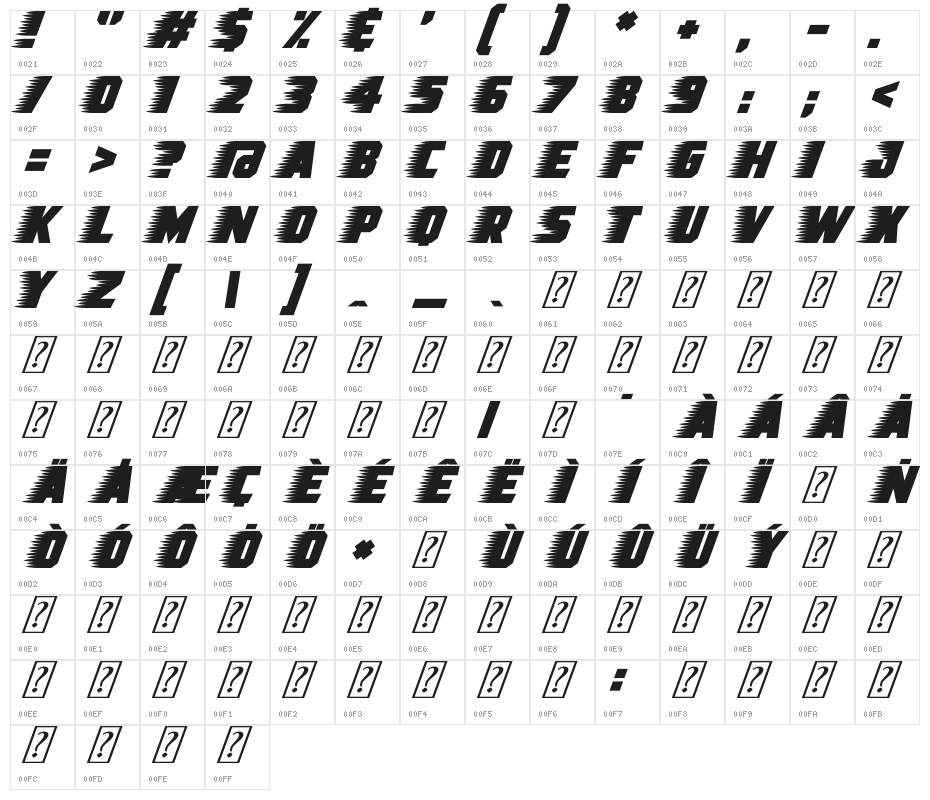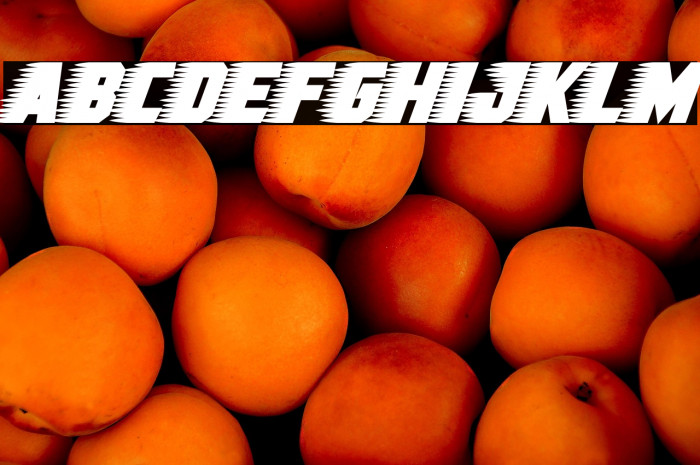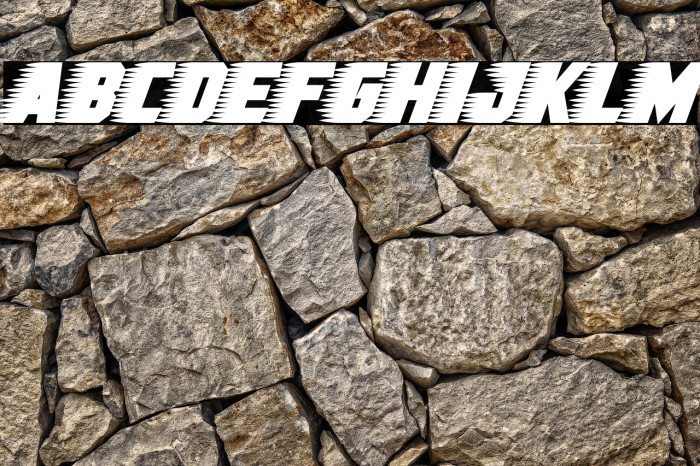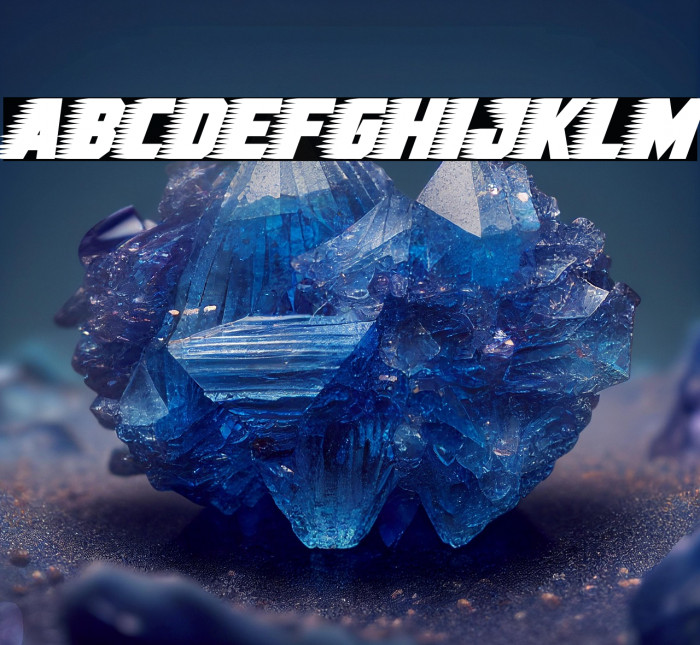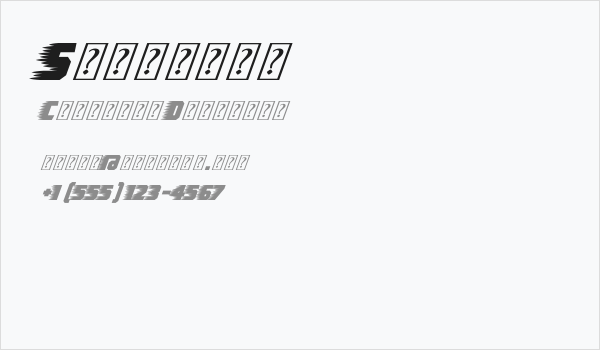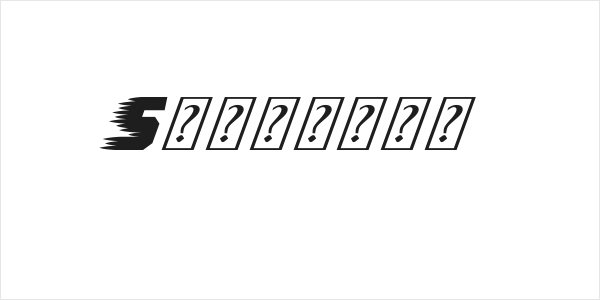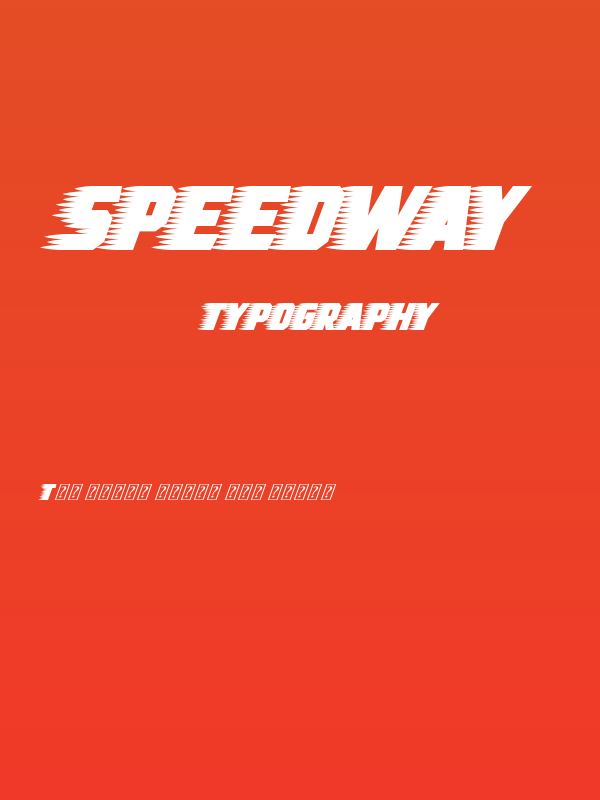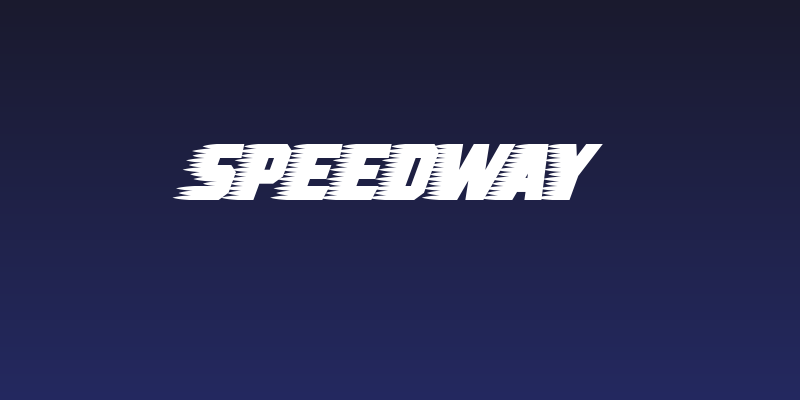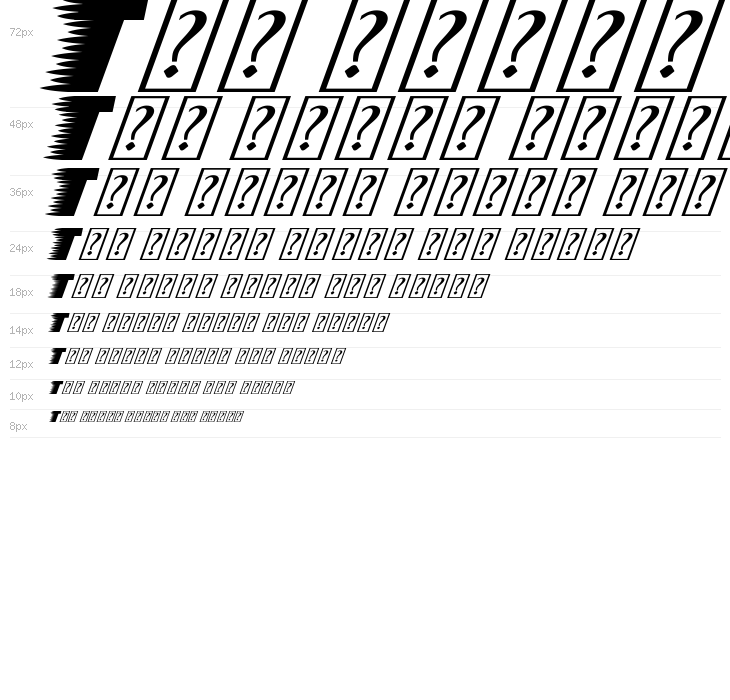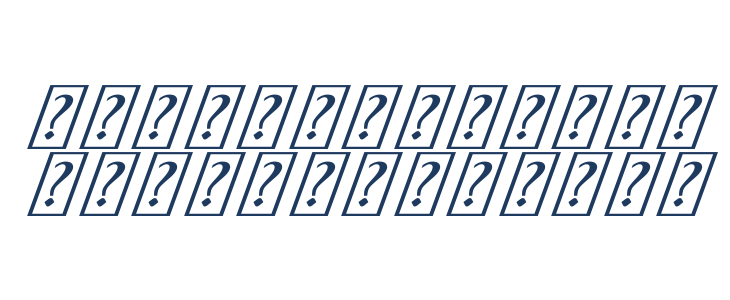
Speedway Font
Speedway Description
This font features a dynamic and energetic style, characterized by bold, italicized letters with a distinctive slanted design that gives the impression of speed and movement. The characters are thick and robust, with sharp edges and a unique pattern of horizontal lines that create a sense of motion. This design is particularly striking in uppercase letters, which dominate the visual space with their strong presence. The numbers and special characters follow the same aesthetic, ensuring a cohesive look across all text elements. The font's boldness and slanted orientation make it ideal for applications where impact and attention are paramount.
| Proposed Projects | Ideal for sports branding, racing event posters, dynamic advertisements, and any project requiring a sense of speed and energy. |